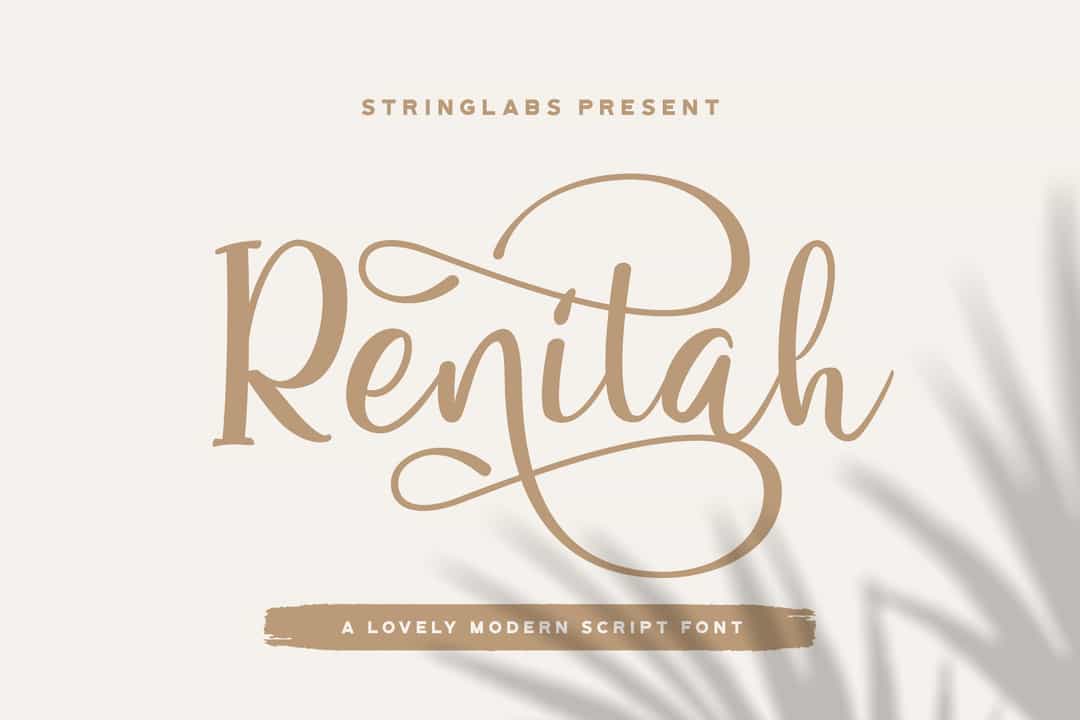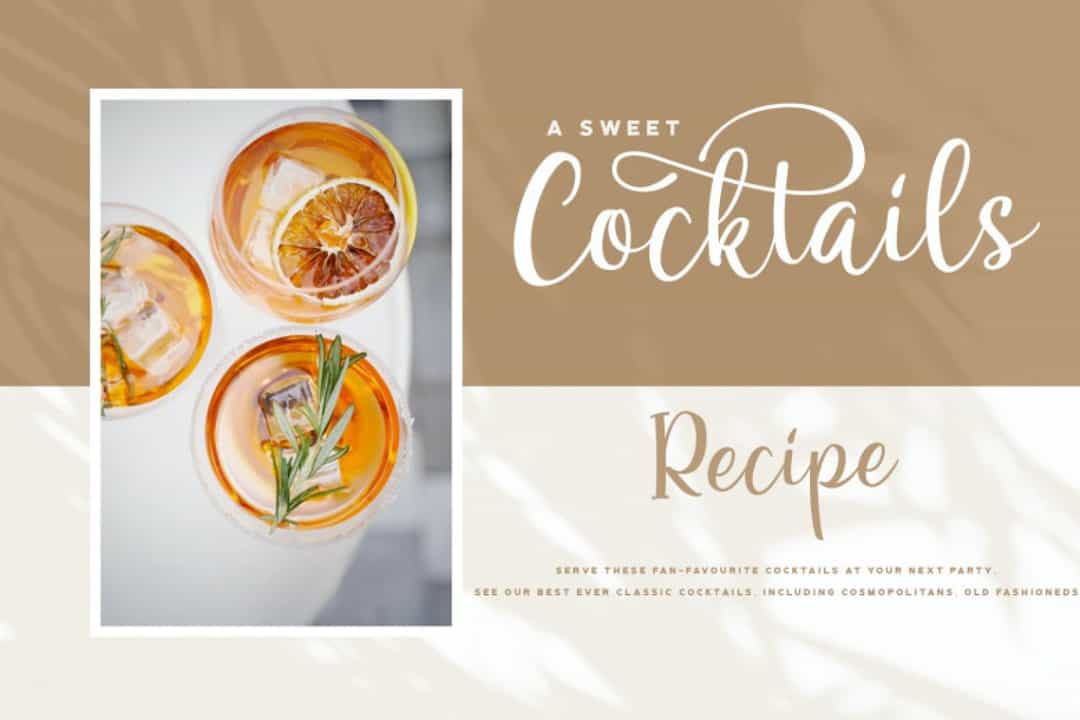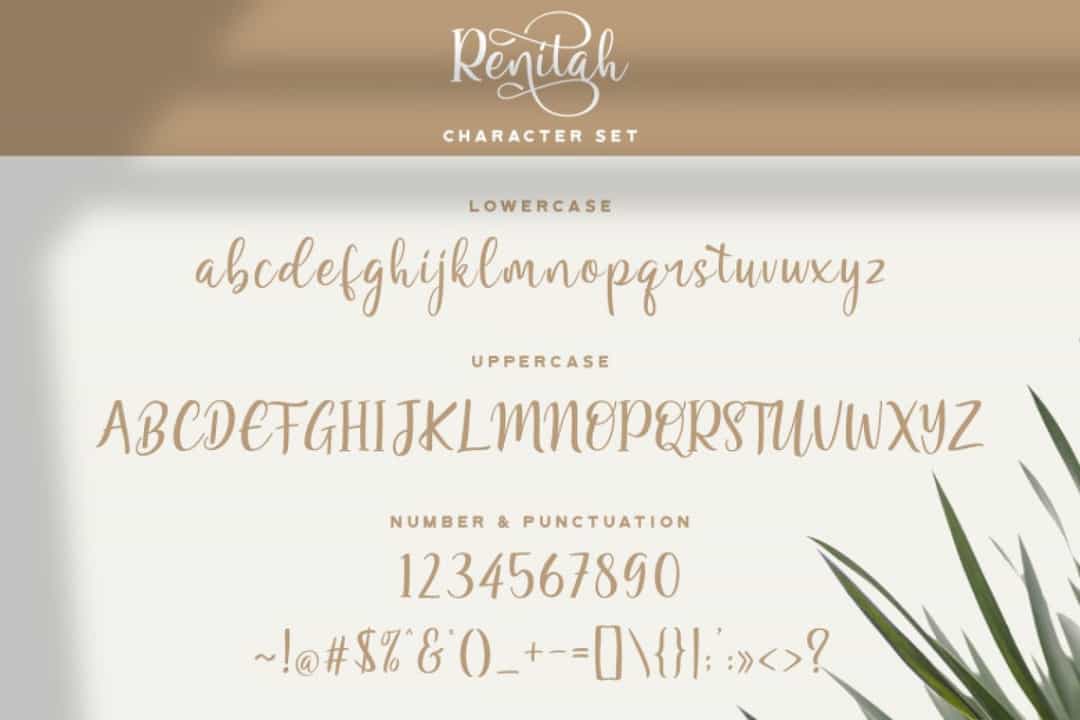
Discover Renitah Lovely Calligraphy Font, part of the Calligraphy collection—a versatile and unique font perfect for adding a personal touch to your projects. Download it for free and enjoy crafting designs with style, from invitations to social media posts. This font is available exclusively for personal use, giving you the freedom to create without limits. Unlock your creativity with Renitah Lovely Calligraphy Font today!
Renitah is a fashionable script font for calligraphy that has lowercase, uppercase and symbol as well as support for multi-language. There are a variety of ligatures within this font. It lets you make beautiful and easy handwriting quickly.